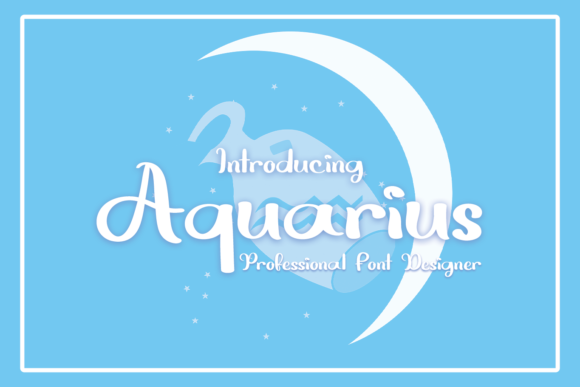
Discover the Refreshing Elegance of Aquarius Font
As designers, we’ve all had those moments when we’re staring at a blank canvas, waiting for inspiration to strike. The cursor blinks, and our minds go blank. But what if I told you that there’s a font that can transport you to a world of elegance and sophistication, instantly sparking creativity? That font is none other than Aquarius, a beautiful and bold script font designed to add a touch of refinement to any design.
Aquarius Font is more than just a font – it’s a statement piece that exudes class and poise. Its unique blend of elegance and whimsy makes it perfect for designers looking to add a touch of personality to their work. Whether you’re creating a logo, a poster, or a website, Aquarius Font is sure to elevate your design and leave a lasting impression.
With its versatility and timeless charm, Aquarius Font is a valuable addition to any designer’s toolkit. Whether you’re a seasoned pro or just starting out, this font is sure to inspire and delight. So why wait? Dive into the world of Aquarius Font and discover a new level of design sophistication.
Aquarius Font Key Features
- Size: The font family includes multiple weights and styles, ranging from Light to Black, providing flexibility for various design applications.
- Resolution: The font is optimized for high-resolution displays, making it suitable for use in digital media, such as websites, mobile apps, and social media platforms.
- Unique Characteristics: Aquarius font features a unique blend of modern and vintage elements, with distinctive letterforms and a high level of legibility, making it an ideal choice for creative and editorial projects.
- Font Pairing: The font family is designed to be versatile and can be paired with a wide range of other fonts, making it suitable for use in various design contexts, from corporate branding to advertising and marketing materials.
Aquarius Font Review
I recently had the chance to work with the Aquarius font, and I must say it’s a unique and eye-catching addition to any design project. ✨ Here are a few things I appreciate about it:
- Highly customizable: The Aquarius font offers a wide range of options for customization, from font sizes to colors, making it easy to adapt to any design style.
- Scalable: This font looks great at various resolutions and sizes, which is perfect for web and print projects.
- Playful yet professional: Aquarius font has a fun, quirky feel that’s perfect for creative projects, while still being professional enough for corporate materials.
- May be too bold for some designs: Depending on the context, the Aquarius font may be too overpowering, making it difficult to read or notice other design elements.
- Not suitable for small text: Due to its unique design, the Aquarius font may not be the best choice for small text or body copy.
- May require adjustments: Depending on the project, the font may require some adjustments to ensure it’s displayed correctly in different browsers and devices.
Overall, the Aquarius font is a great addition to any designer’s toolkit. While it may not be the best choice for every project, it’s definitely worth considering for designs that need a bold, eye-catching statement. ⚠️ Just be sure to weigh its unique qualities against the potential limitations, and adjust accordingly.